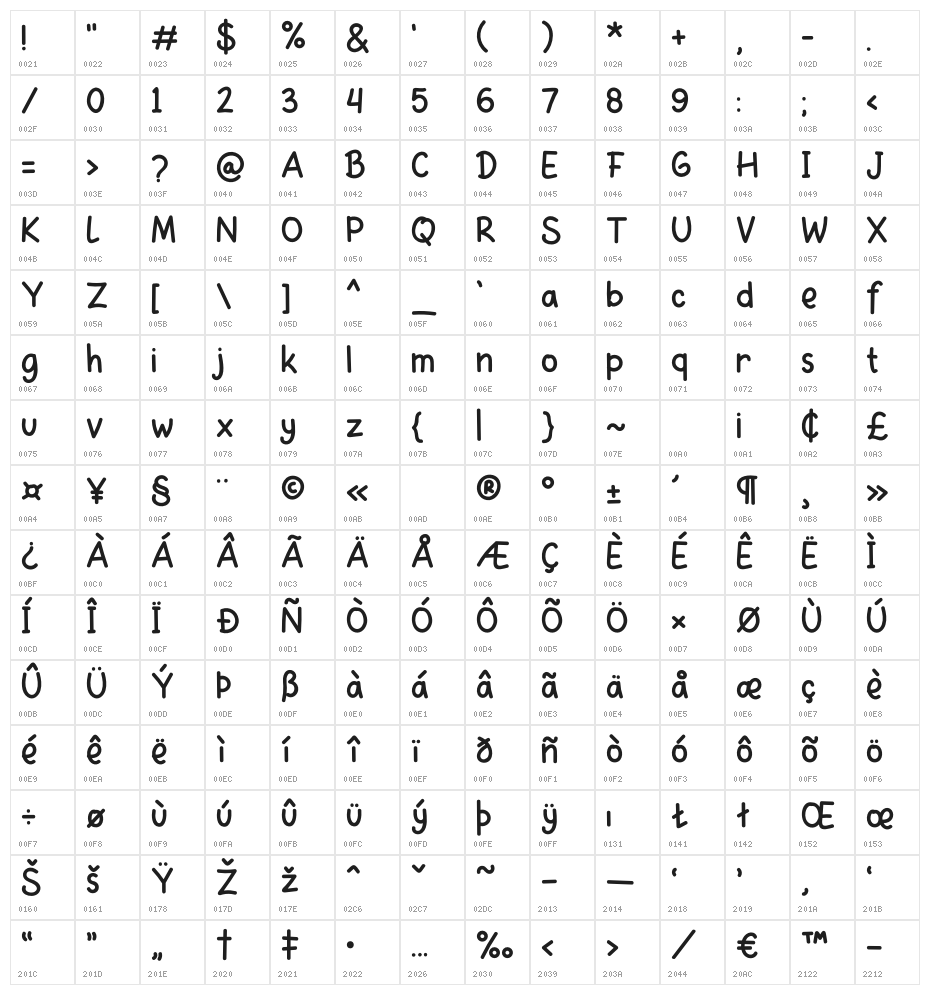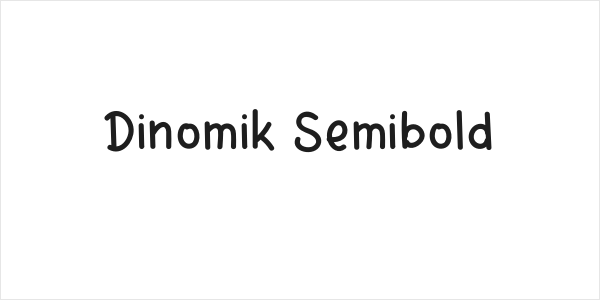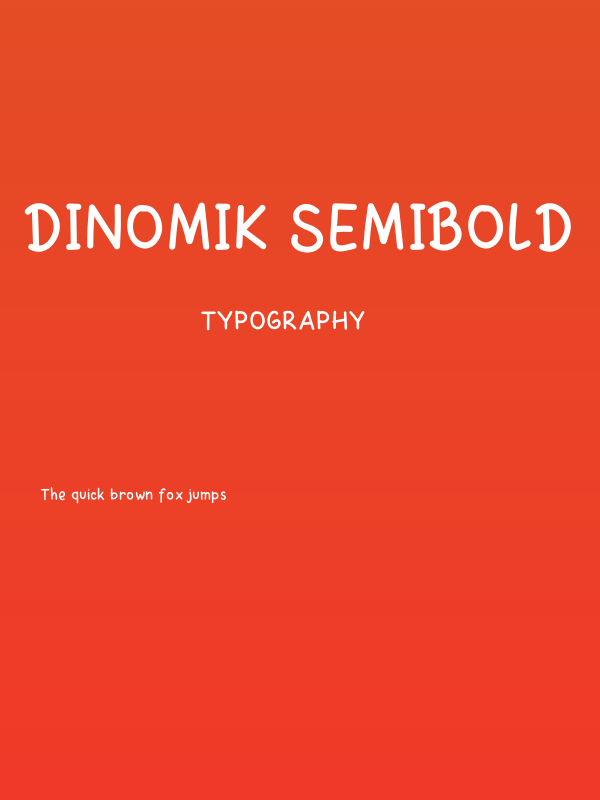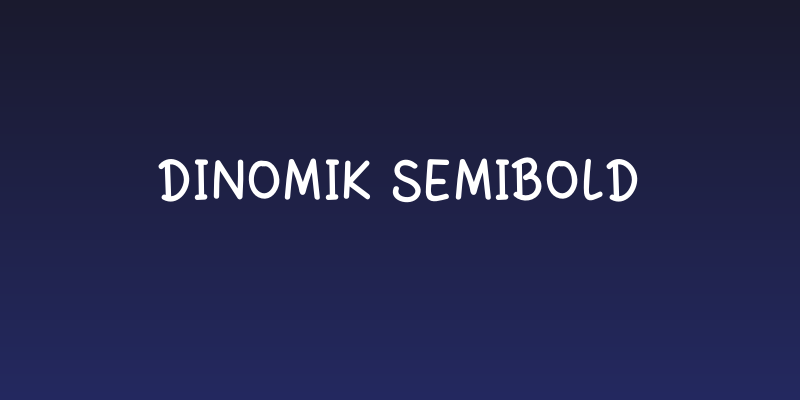
Dinomik Semibold Font
Dinomik Semibold Description
This font features a playful and rounded style, characterized by its thick, consistent strokes and slightly irregular shapes that give it a hand-drawn appearance. The uppercase letters are bold and prominent, while the lowercase letters maintain a friendly and approachable look. The numerals are clear and easy to read, matching the overall whimsical aesthetic. Special characters are well-integrated, maintaining the same playful vibe. This font is ideal for projects that require a fun and informal touch, such as children's books, playful branding, or casual invitations.
| Proposed Projects | Children's books, playful branding, casual invitations, greeting cards, and educational materials. |